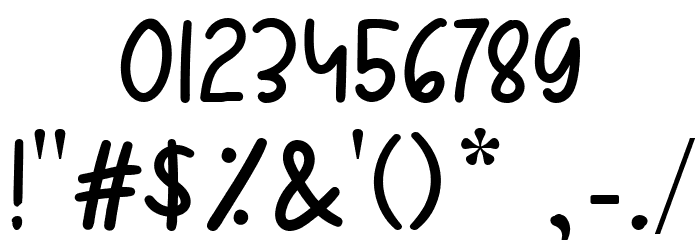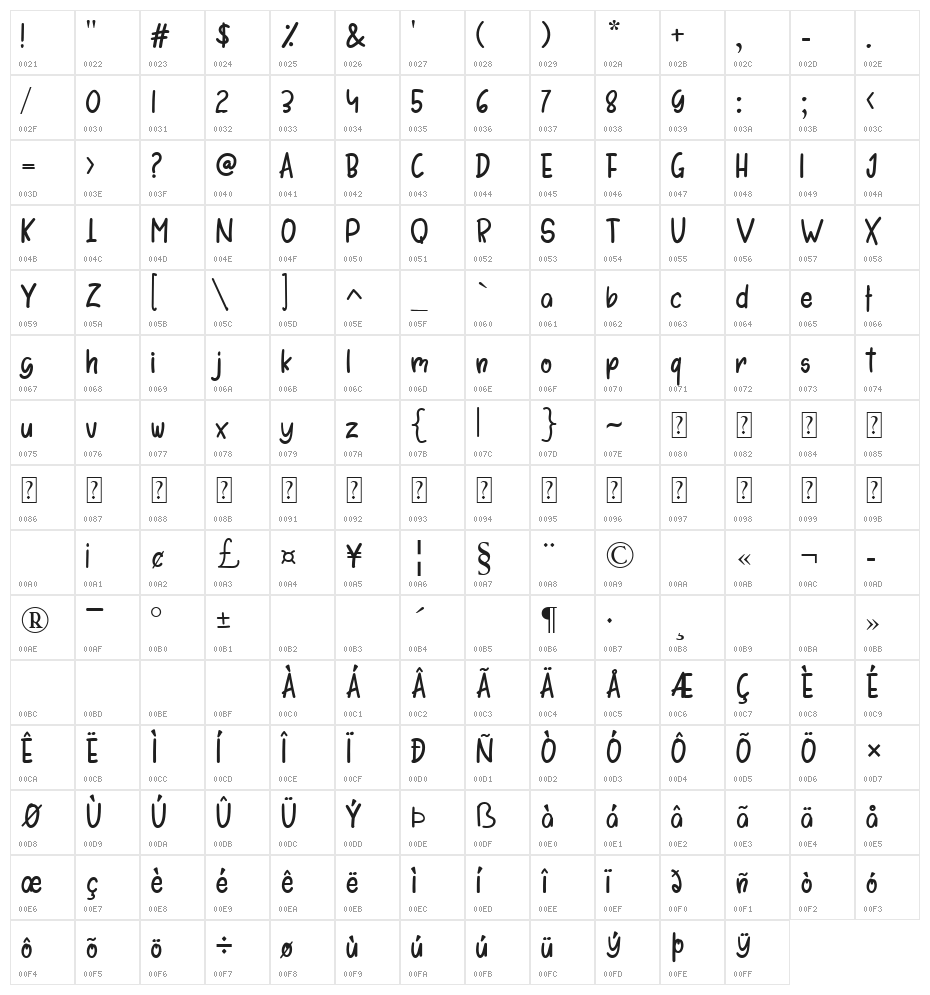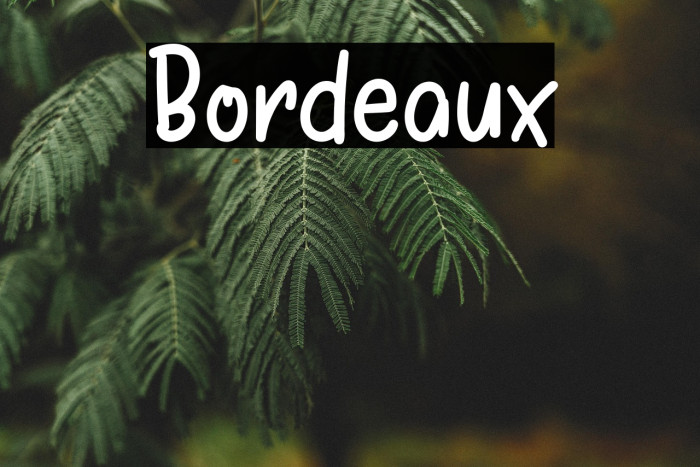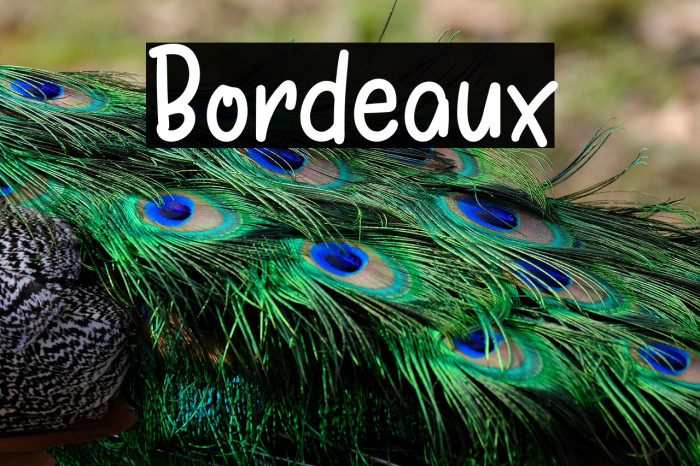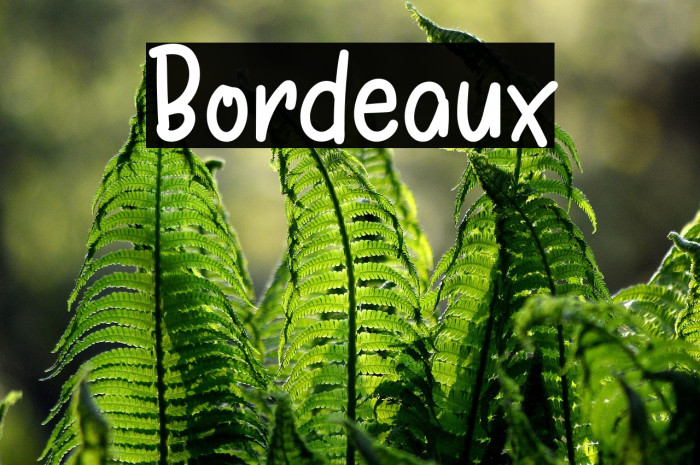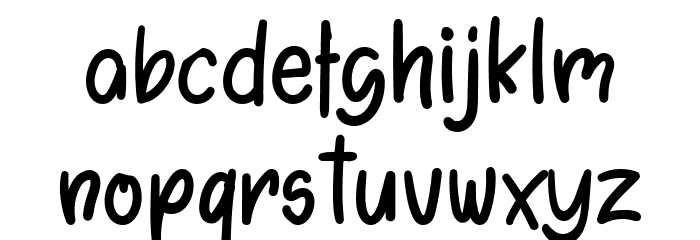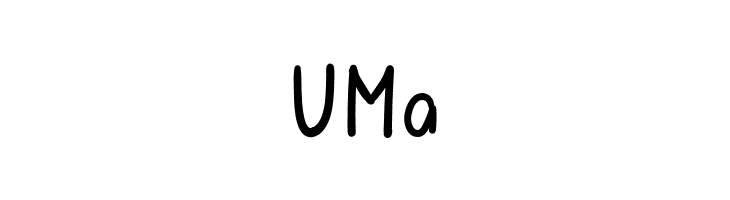
Bordeaux Font
Bordeaux Description
This playful and energetic font features a handwritten style with a casual and friendly appearance. The letters are slightly irregular, adding a personal touch that mimics natural handwriting. The strokes are smooth and rounded, giving the font a warm and approachable feel. It maintains a consistent weight throughout, ensuring readability while retaining its unique character. The numerals and special characters are designed to match the overall style, making it versatile for various uses. Its informal nature makes it ideal for projects that require a personal or whimsical touch.
A playful handwritten font with a casual and friendly style from Regular fonts.
- Font: Bordeaux
- Proposed Projects: Ideal for greeting cards, children's books, personal blogs, and informal branding.
- Overall Style: Casual
- Use Case: Headlines, Informal text, Greeting cards